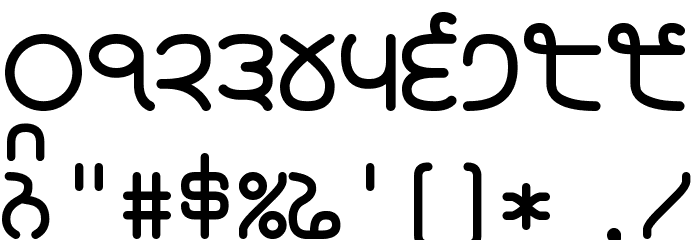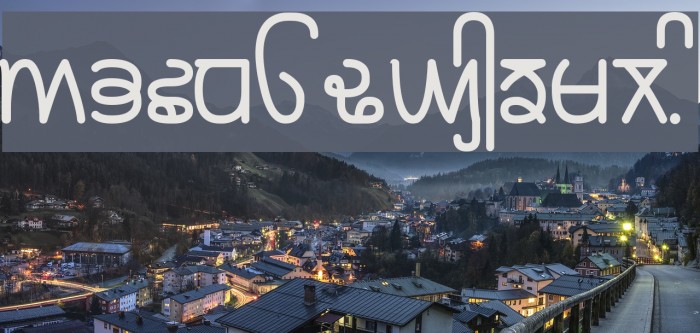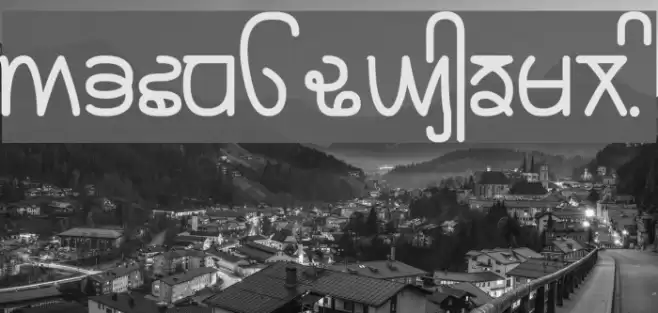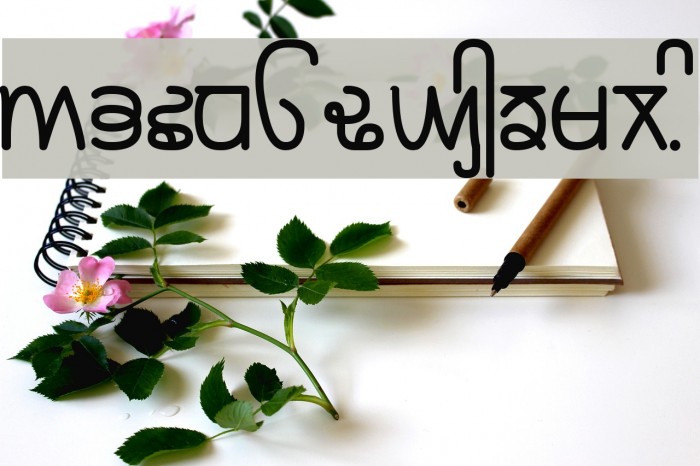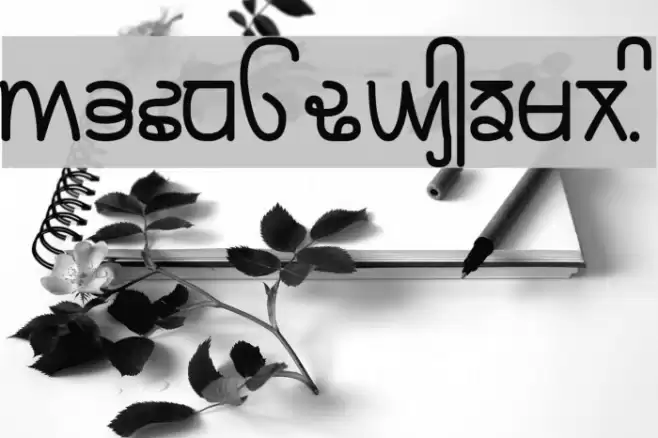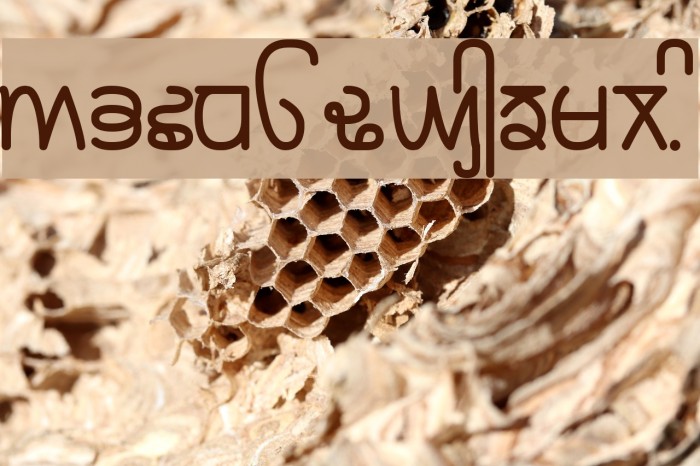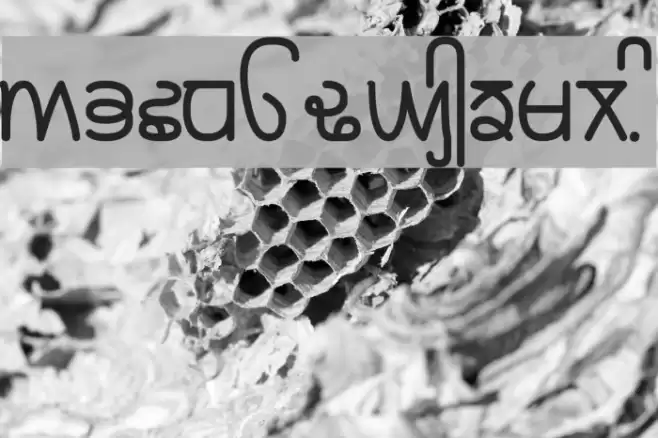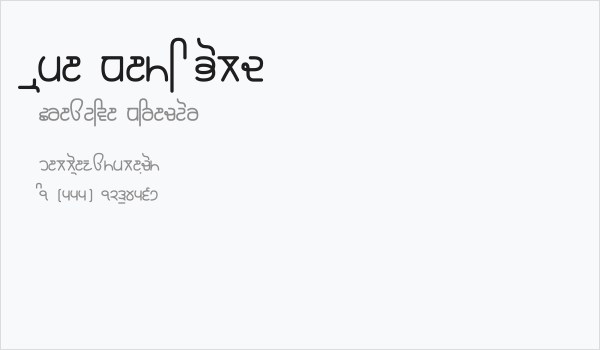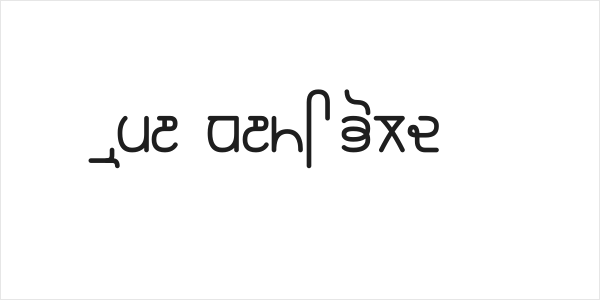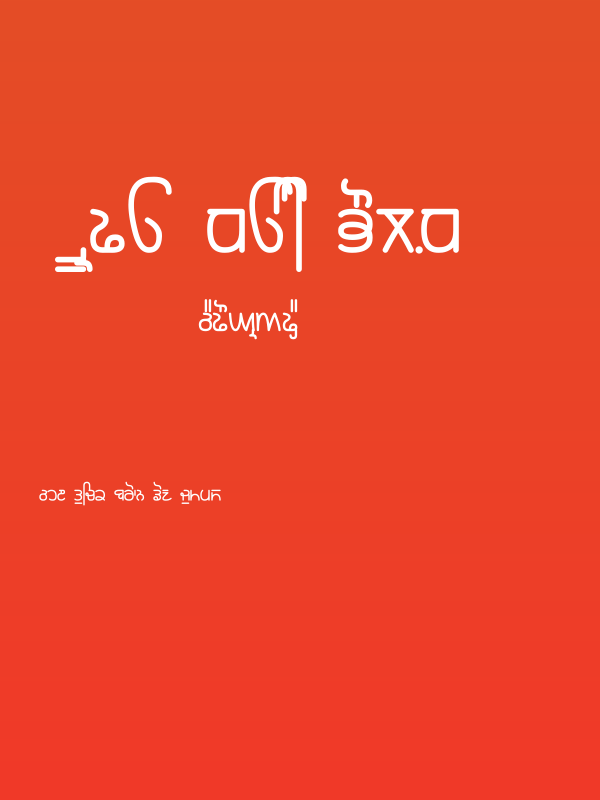
Rupe Demi Bold Font
Rupe Demi Bold Description
This font features a unique and artistic design with a blend of geometric and organic shapes. The characters are bold and have a distinct, flowing style that incorporates both curves and straight lines. The uppercase letters are particularly striking, with some characters having extended strokes that add to the overall decorative appearance. The lowercase letters maintain the same artistic flair, ensuring consistency throughout the typeface. Numbers and special characters are crafted with the same attention to detail, making them stand out. The font's style is both modern and playful, suitable for creative projects that require a distinctive and eye-catching typeface.